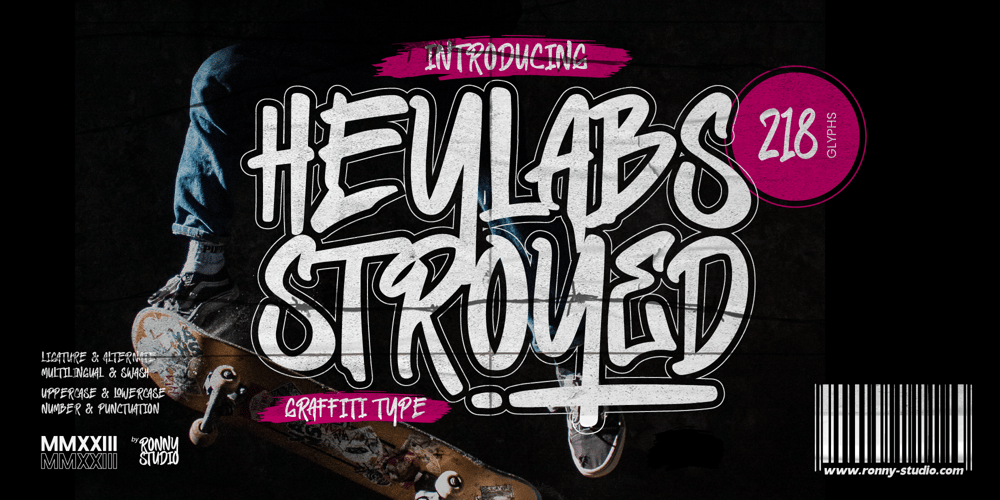
Heylabs Stroyed Font Family was designed by Rony Rizki Jaya and published by Ronny Studio. Heylabs Stroyed contains 2 styles and family package options. Heylabs Stroyed is distinctive handwriting and encapsulates the essence of street style. This typeface is perfect for an poster event, movie title, streetwear stuff, magazine layout, fashion brand, quotes, or simply as a stylish text overlay to any background image.